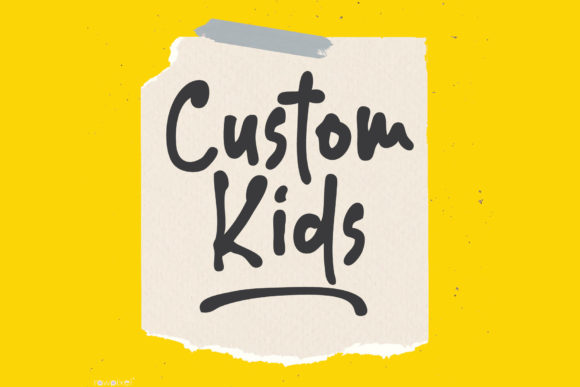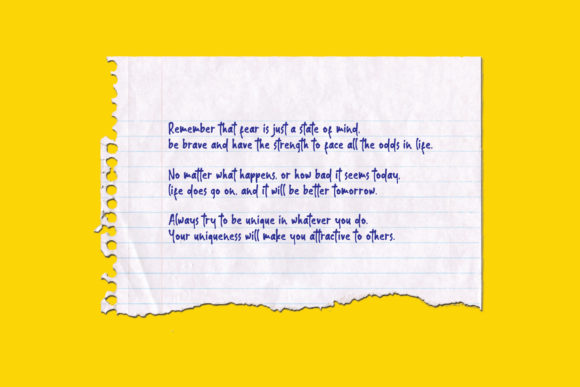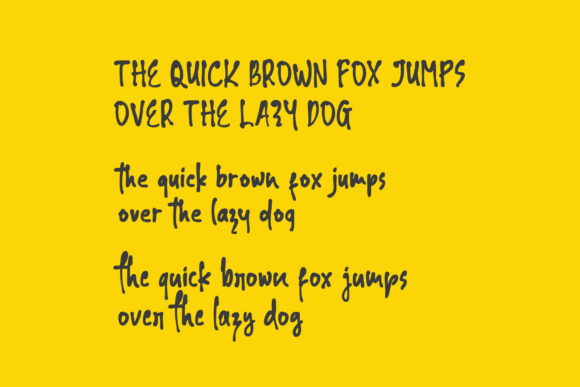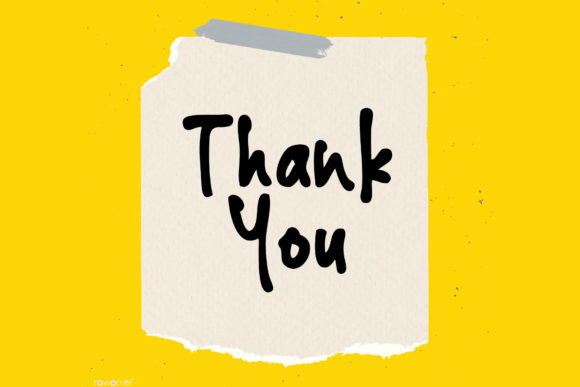
Custom Kids Font
About Custom Kids Font
Custom Kids is a simple, quirky and adaptable handwritten font. Its informal style and casual vibe will make this font a go-to choice for each of the creations that require a relaxed touch.